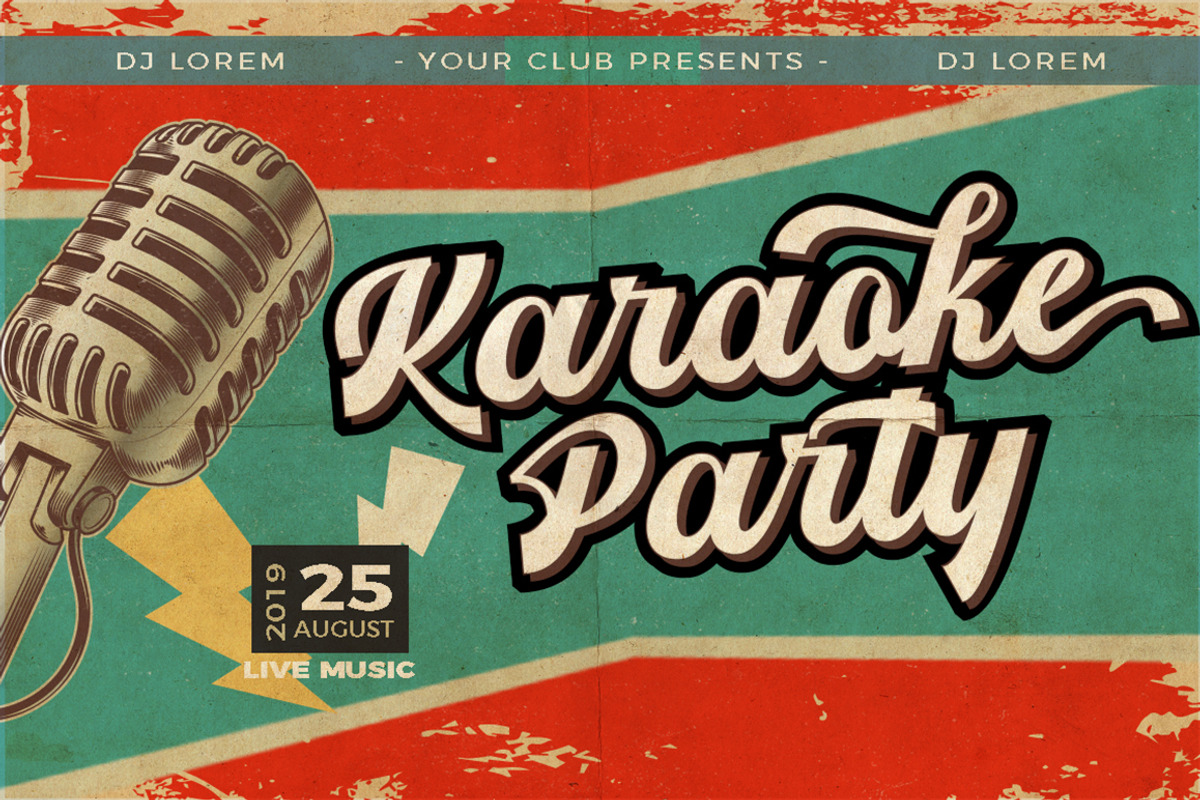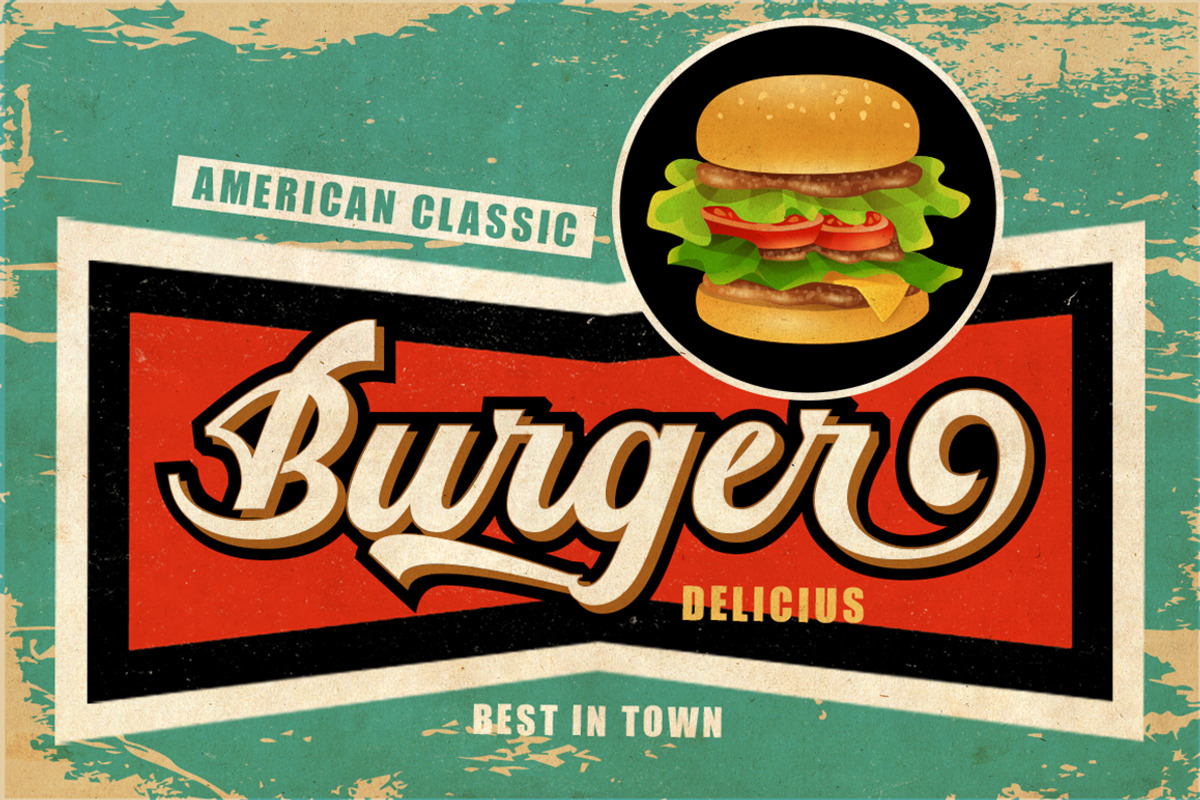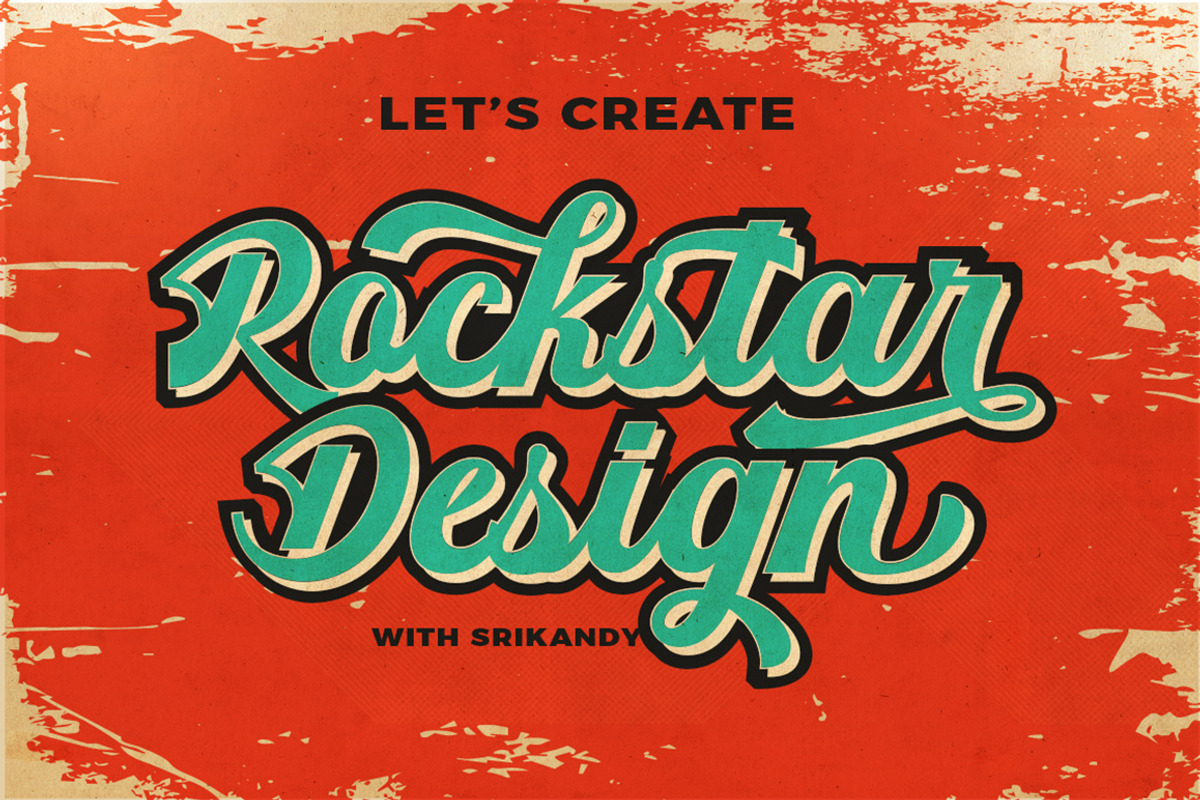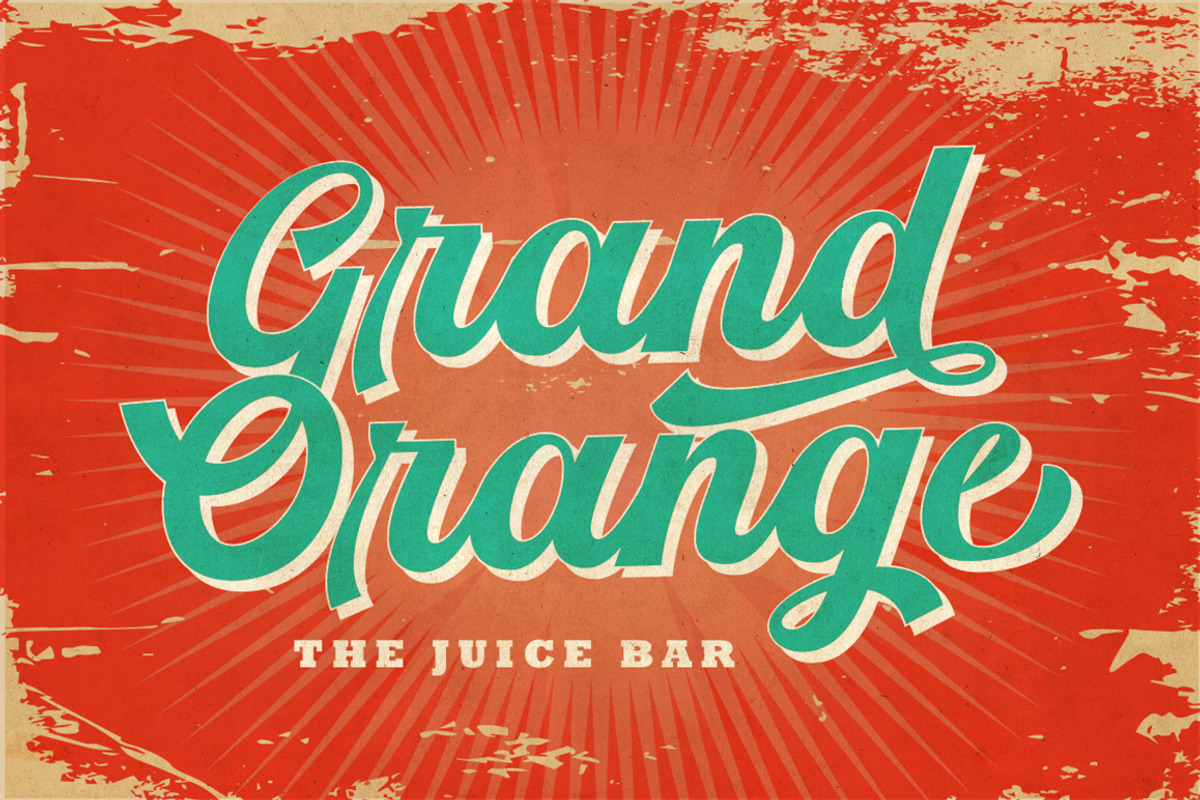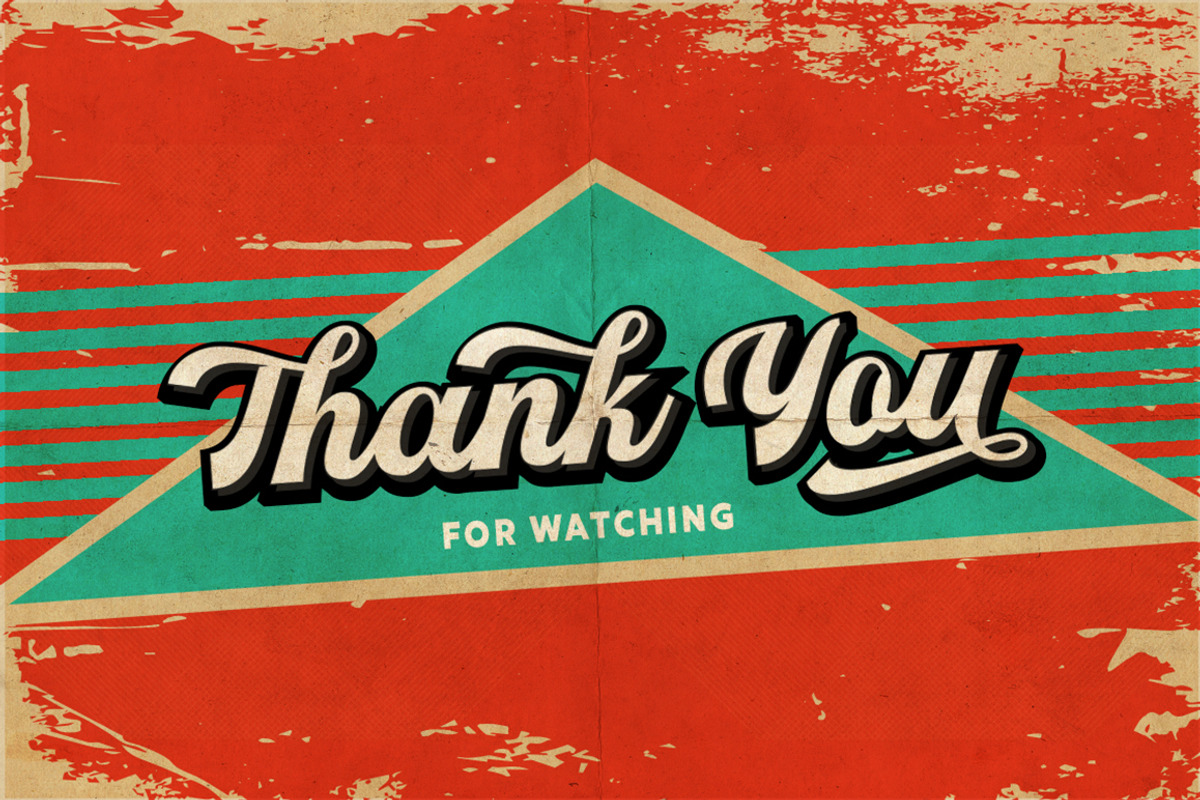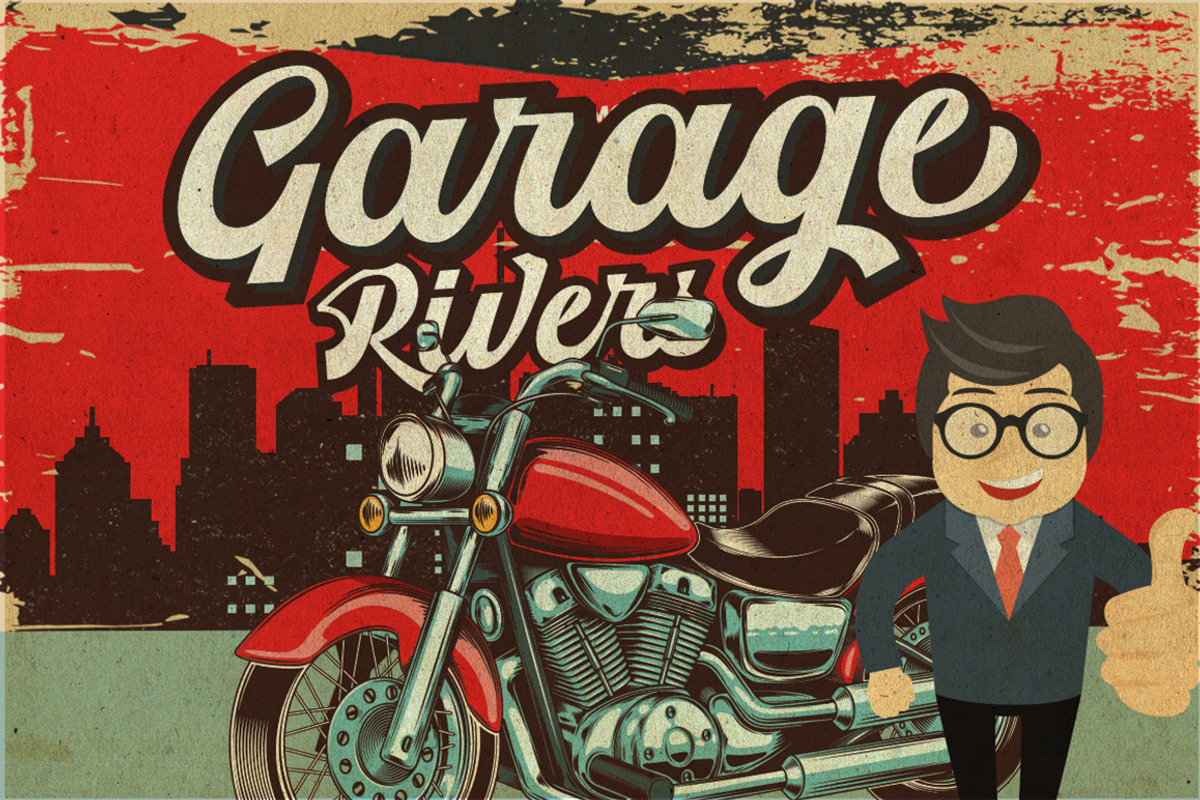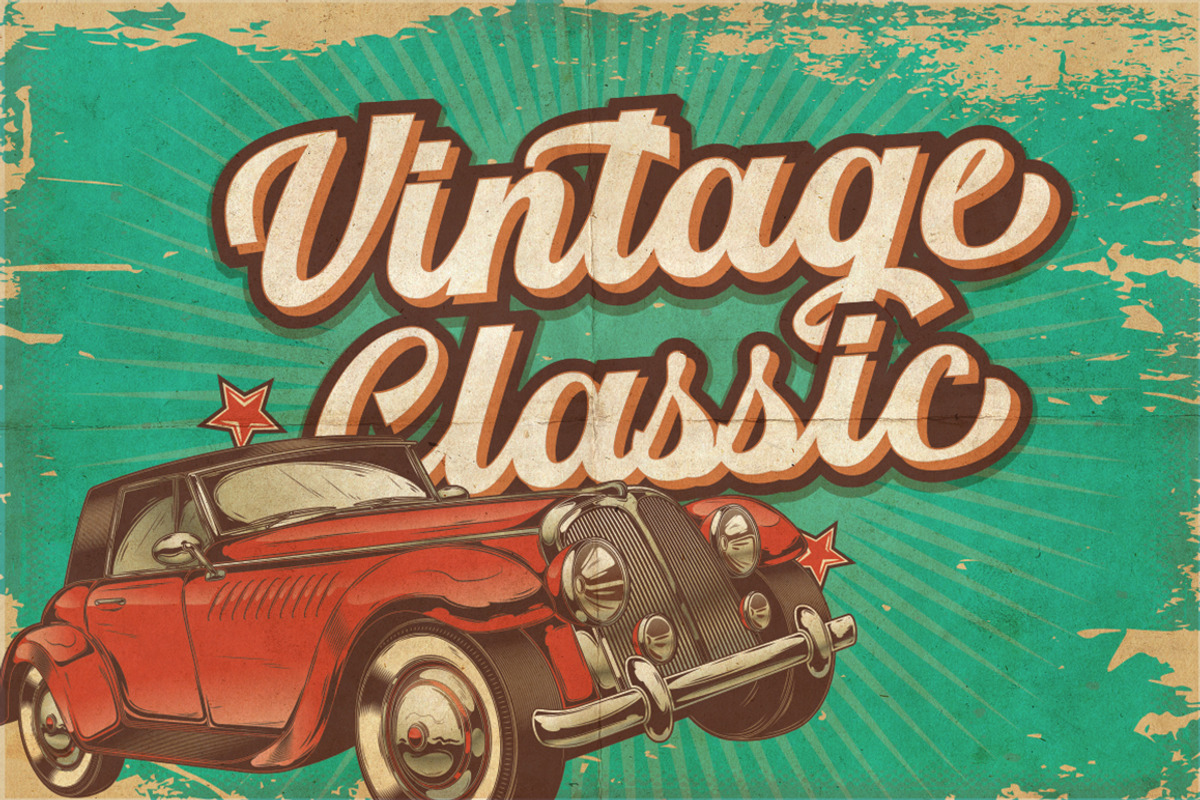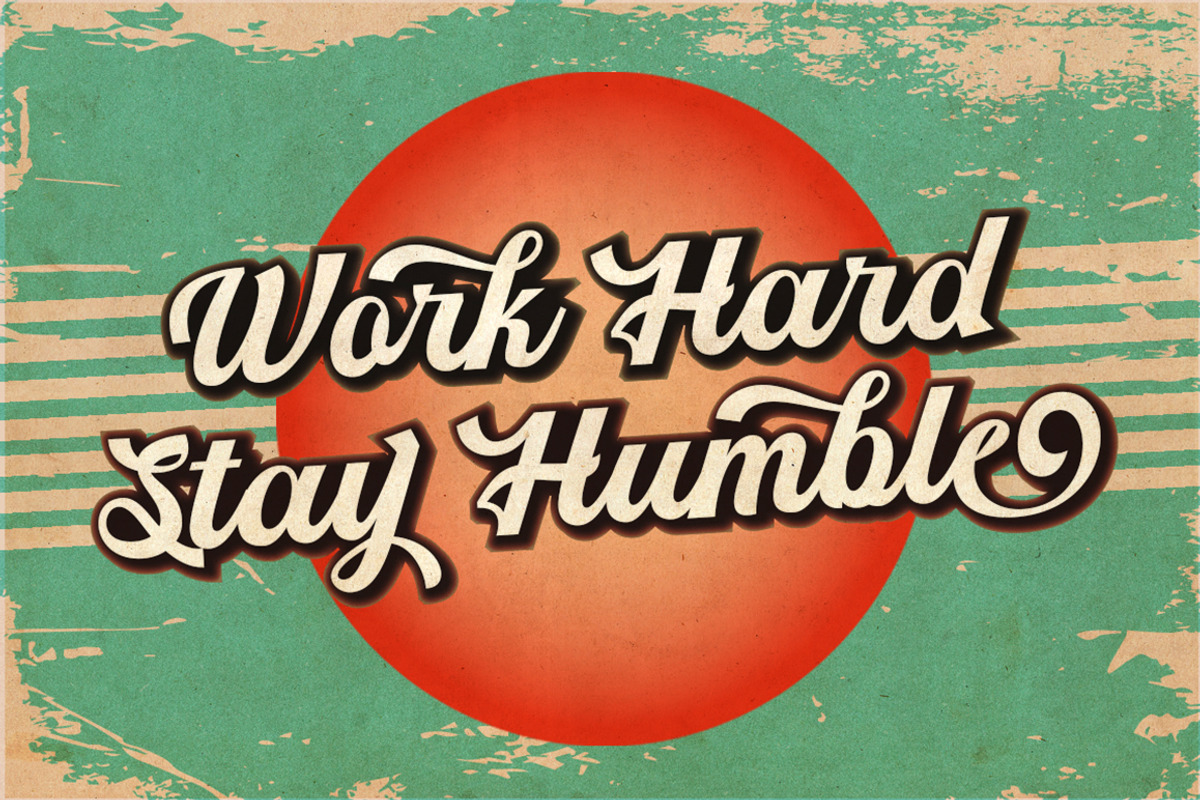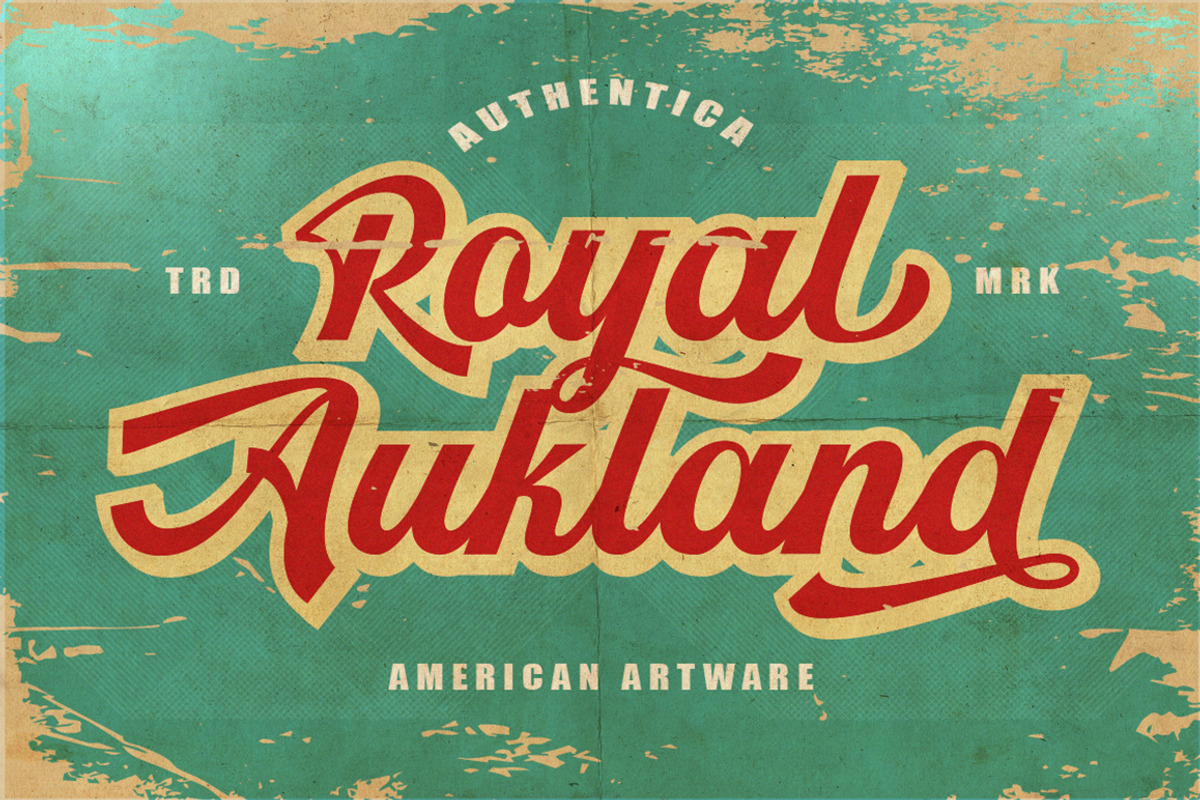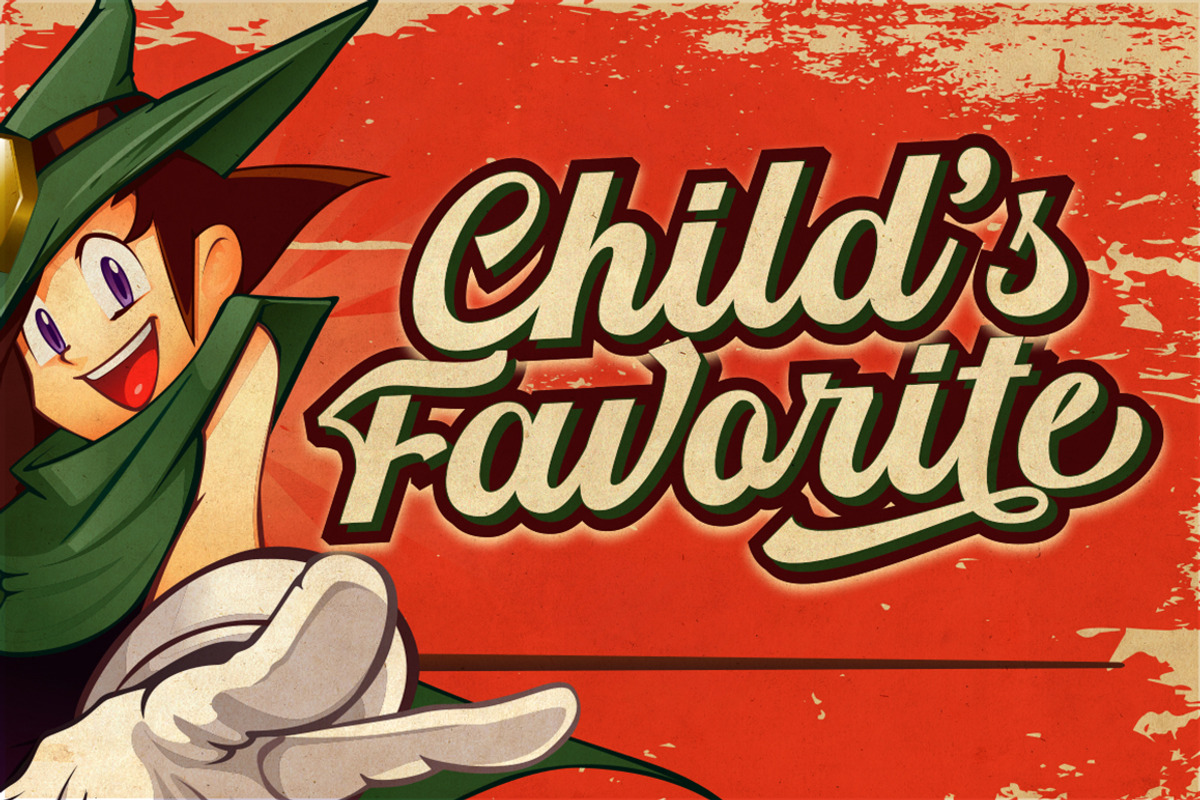
Srikandy
Srikandy looks bold and straight forward. Srikandy comes in three types, ordinary and special. The special type has unique small slices that provide more personal touch and make the font look customizable. This font is suitable for use as logos, clothing, wedding invitations, signage, sports clubs, motorbikes / cars, etc. This font has many opentype features such as binder, alternative style, contextual alternative, swash, etc. and supports multiple languages.